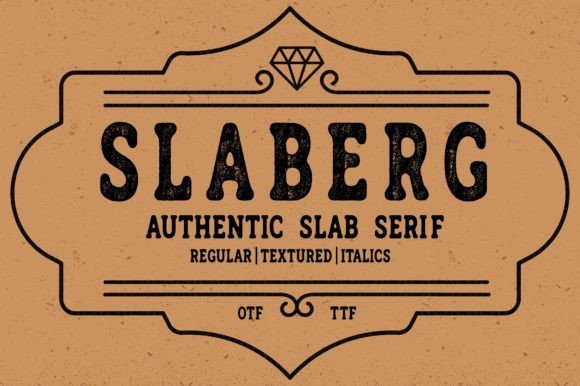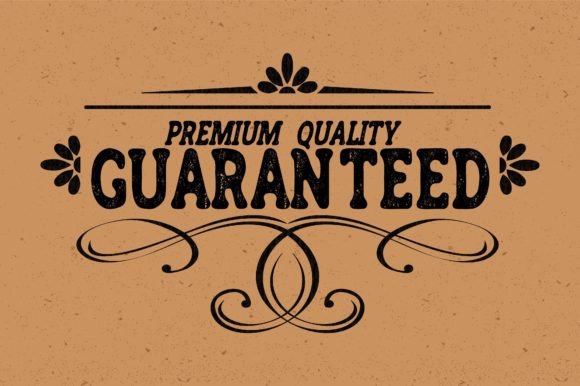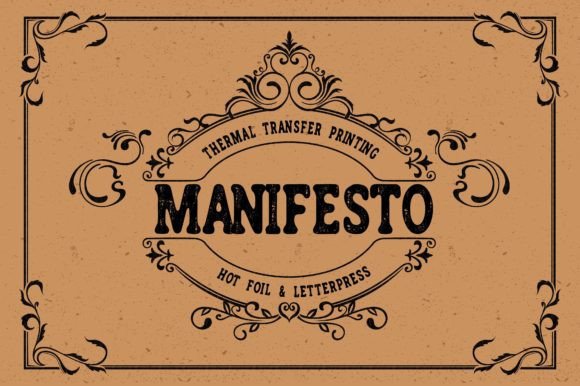
Slaberg
Slaberg: A Vintage Slab Serif Font Family
Slaberg is a vintage slab serif font family designed to imitate color press printing technology, transferring amazing luxury printing effects to the digital world. By combining grunge texture with the font body, it produces an eye-catching look that attracts attention. This font is perfect for vintage, retro elegant graphics that need to stand out.
Key Features of Slaberg
• Vintage Design: Offers a classic and timeless look inspired by color press printing.
• Slab Serif Structure: Features distinctive serifs that add character and style.
• Grunge Texture: Incorporates a distressed effect for an authentic vintage feel.
• Versatile Application: Ideal for both digital and print projects requiring a retro touch.
Ideal Uses for Slaberg
Slaberg’s unique characteristics make it particularly well-suited for:
When incorporating Slaberg into your designs, consider these tips:
• Use for headlines or short blocks of text to showcase its vintage style.
• Experiment with different sizes to highlight the font’s distressed features.
• Utilize its grunge texture to add authenticity to retro-inspired designs.
Slaberg is an excellent choice for designers looking to add a vintage slab serif font to their typographic toolkit. Its ability to mimic color press printing technology makes it stand out in the world of digital typography. Whether you’re working on branding projects, creating retro-inspired layouts, or developing content that requires a touch of vintage elegance, Slaberg offers the perfect blend of style and authenticity.
Furthermore, Slaberg’s unique design allows it to shine in various contexts. From luxury product packaging to vintage-themed websites, this font can elevate your projects with its distinctive style. Its distressed yet readable appearance works particularly well in designs that aim to evoke a sense of nostalgia and craftsmanship.
In conclusion, Slaberg is a font that truly captures the essence of vintage typography with a modern twist. Its ability to work well in both digital and print media showcases its versatility. For those looking to add a touch of retro charm to their work, Slaberg can enhance themed creations with its distinctive style. It’s the perfect choice for designers seeking to make a strong, vintage-inspired impact across a wide range of creative projects.